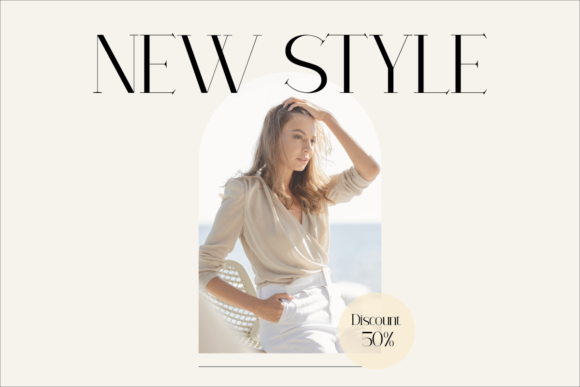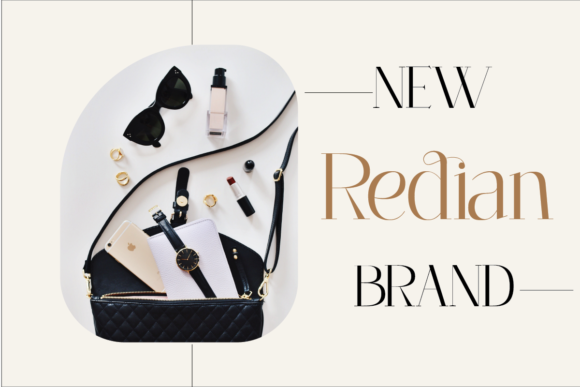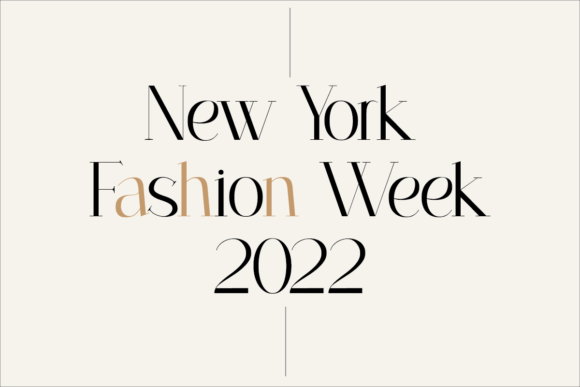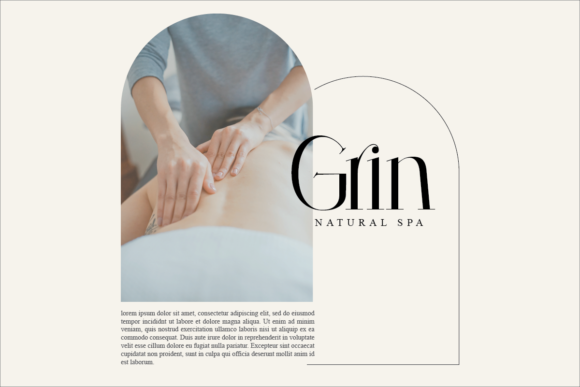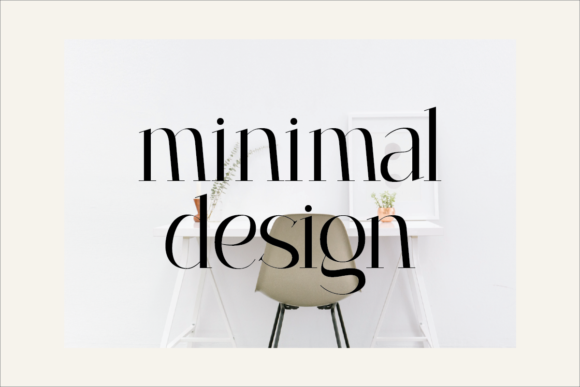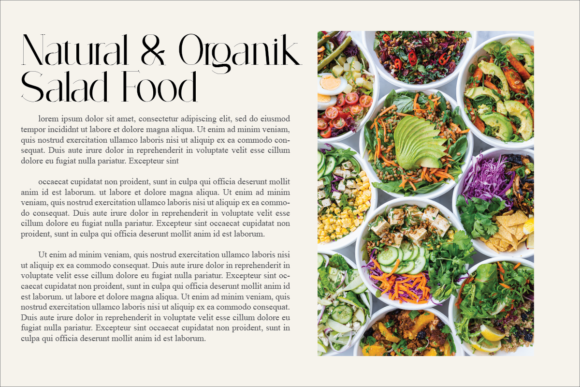
Camilen Font: Elevate Your Designs with a Touch of Elegance
In the world of typography, fonts play a crucial role in conveying the tone and personality of a design. For designers and crafters looking to add a touch of sophistication to their creations, Camilen Font is an excellent choice. This thin lettered and stylish serif font is a versatile asset that can enhance any project, regardless of the topic or theme.
What Makes Camilen Font Stand Out?
Camilen Font boasts a unique blend of elegance and simplicity, making it an ideal choice for designers seeking to create visually appealing designs. Its thin lettering and serif details give it a classic and refined look, perfect for projects that require a touch of sophistication. Whether you’re working on a branding project, a website design, or a craft project, Camilen Font is sure to make a lasting impression.
Key Features of Camilen Font
- Thin Lettering: Camilen Font features thin lettering that adds a touch of elegance to any design.
- Serif Details: The font’s serif details provide a classic and refined look, making it perfect for projects that require a touch of sophistication.
- Versatility: Camilen Font is a versatile asset that can be used in a wide range of projects, from branding and website design to crafting and DIY projects.
- Easy to Read: Despite its thin lettering, Camilen Font is easy to read, making it perfect for body text and headings.
Uses of Camilen Font
Camilen Font is a versatile asset that can be used in a wide range of projects, including:
- Branding: Use Camilen Font to create elegant and sophisticated brand identities, including logos, business cards, and letterheads.
- Website Design: Add a touch of elegance to your website design with Camilen Font, perfect for headings, titles, and body text.
- Crafting and DIY Projects: Use Camilen Font to add a personal touch to your crafting and DIY projects, such as handmade cards, invitations, and scrapbooking.
- Advertising: Create eye-catching advertisements with Camilen Font, perfect for print and digital ads.
Tips for Using Camilen Font
To get the most out of Camilen Font, here are some tips to keep in mind:
- Use it sparingly: While Camilen Font is elegant and sophisticated, it’s best to use it sparingly to avoid overwhelming the design.
- Pair it with other fonts: Experiment with pairing Camilen Font with other fonts to create a unique and visually appealing design.
- Adjust the size: Adjust the size of Camilen Font to create visual hierarchy and emphasis in your design.
Camilen Font is a stylish and elegant serif font that can elevate any design. Its thin lettering and serif details make it a versatile asset that can be used in a wide range of projects, from branding and website design to crafting and DIY projects. With its ease of use and versatility, Camilen Font is a must-have for designers and crafters looking to add a touch of sophistication to their creations.